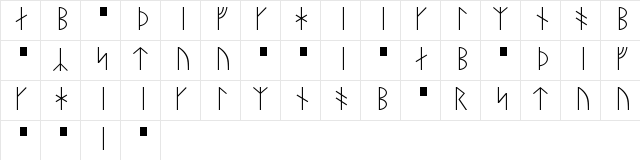
Runar Viking 16 characters Regular
Design Context for Runar Viking 16 characters Typeface
Runar Viking 16 characters takes a measured approach to typography — its balanced proportions and neutral character make it a reliable workhorse for both digital and print work.